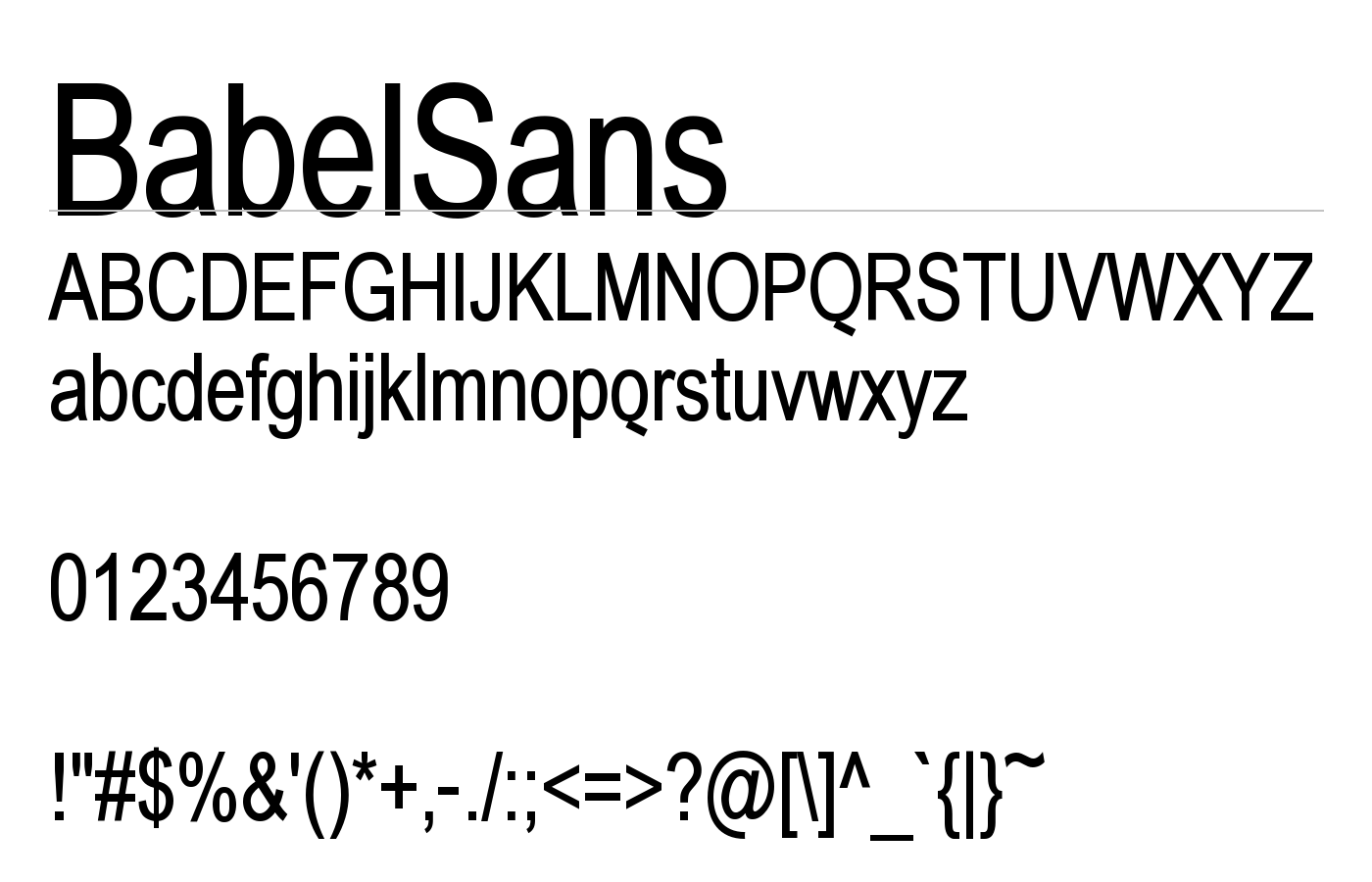
BabelSans is a clean and modern sans serif font characterized by its narrow width and tall x-height, which gives it a sleek and efficient appearance. Its uniform stroke weight and straightforward letterforms make it highly legible, perfect for contemporary designs that demand clarity and professionalism. This font works well for editorial content, websites, and branding where a polished yet approachable aesthetic is desired.
BabelSans Font